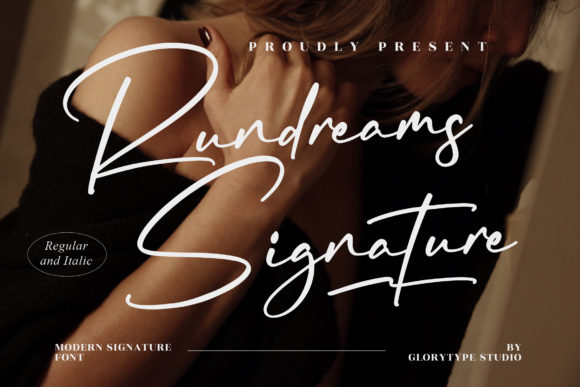
Rundreams Signature Font: Elevate Your Designs with Elegance and Class
In the world of typography, a well-crafted font can make all the difference in elevating your designs to the next level. If you’re looking for a lovely and delicate script font that exudes elegance and class, look no further than Rundreams Signature. This beautiful font is specifically designed for those who need a refreshing and stunning look to their designs. In this article, we’ll dive into the features and benefits of Rundreams Signature, and explore how it can enhance your creative projects.
What Makes Rundreams Signature Special?
Rundreams Signature is a meticulously crafted script font that boasts a range of impressive features. Here are just a few reasons why this font stands out:
- Elegant and Delicate Design: Rundreams Signature is characterized by its slender lines, flowing curves, and beautiful swashes. This font is perfect for designs that require a touch of sophistication and refinement.
- PUA Encoding: Rundreams Signature is PUA (Private Use Area) encoded, which means you can easily access all the amazing glyphs and ligatures without any hassle. This feature makes it simple to get the most out of this font and add a unique touch to your designs.
- Highly Versatile: Whether you’re working on a logo, branding project, wedding invitation, or social media graphic, Rundreams Signature is the perfect choice. This font is designed to work beautifully in a variety of contexts.
How to Use Rundreams Signature in Your Designs
Rundreams Signature is an incredibly versatile font that can be used in a wide range of design applications. Here are some ideas to get you started:
- Logos and Branding: Create a stunning logo or brand identity with Rundreams Signature. This font is perfect for businesses that want to convey elegance, sophistication, and refinement.
- Wedding Invitations and Stationery: Add a touch of romance and whimsy to your wedding invitations, stationery, and other paper goods with Rundreams Signature.
- Social Media Graphics: Elevate your social media graphics with Rundreams Signature. This font is perfect for creating eye-catching posts, stories, and ads that will help you stand out from the crowd.
- Packaging and Product Design: Use Rundreams Signature to add a touch of elegance and sophistication to your packaging and product designs.
Typography Tips for Working with Rundreams Signature
To get the most out of Rundreams Signature, here are some typography tips to keep in mind:
- Pair with a Sans-Serif Font: For a beautiful contrast, pair Rundreams Signature with a clean sans-serif font. This will create a stunning visual hierarchy and add depth to your designs.
- Experiment with Ligatures: Rundreams Signature features a range of beautiful ligatures that can add a touch of elegance and sophistication to your designs. Experiment with different ligatures to find the ones that work best for your project.
- Play with Swashes: The swashes in Rundreams Signature are designed to add a touch of whimsy and flair to your designs. Experiment with different swash styles to find the ones that work best for your project.
The Benefits of Using Rundreams Signature
So why choose Rundreams Signature for your design projects? Here are just a few benefits of using this beautiful font:
- Elegant and Refined: Rundreams Signature is the perfect choice for designs that require a touch of elegance and refinement.
- Highly Versatile: This font is designed to work beautifully in a wide range of contexts, from logos and branding to social media graphics and packaging.
- Easy to Use: With PUA encoding, Rundreams Signature is easy to use and access all the amazing glyphs and ligatures.
In conclusion, Rundreams Signature is a stunning script font that exudes elegance and class. With its delicate design, PUA encoding, and highly versatile nature, this font is perfect for a wide range of design applications. Whether you’re a designer, entrepreneur, or DIY enthusiast, Rundreams Signature is a beautiful addition to your font collection.